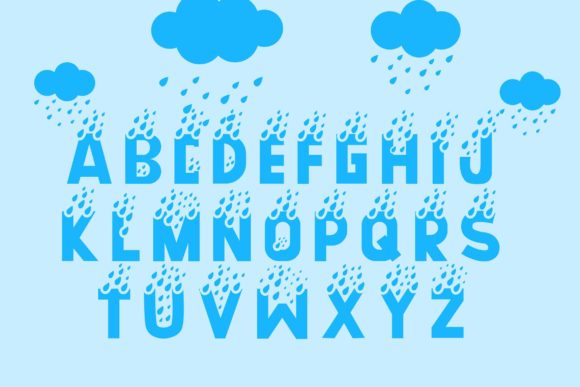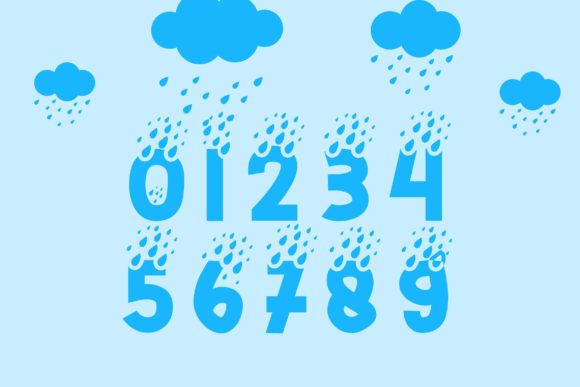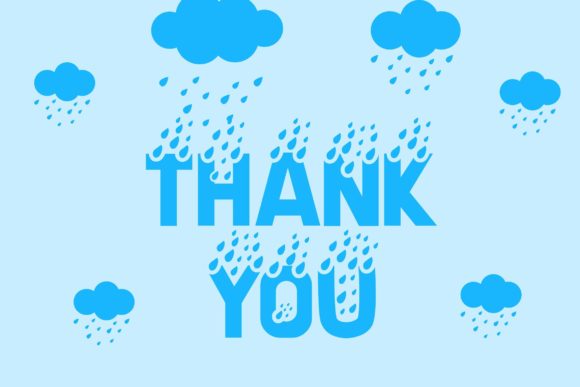
Introduction to Rain Font Font
Fonts play a crucial role in design, and the Rain Font font is a typeface that brings both character and versatility to any project. Whether you’re working on a branding project, a website, or a print design, the Rain Font font offers a unique style that can elevate your work.
Rain is a unique and attractive decorative to use for your new creative projects such as crafts, t-shirt designs, posters, digital designs, presentations, book covers, and or your favorite design ideas.
Add them to your most creative ideas, and watch how it makes it visible .
Key Features of Rain Font Font
Why Choose Rain Font Font?
The Rain Font font is more than just a typeface – it’s a design tool that helps you communicate your message with style and clarity. Its unique character set and versatile design make it suitable for a wide range of applications, from elegant invitations to bold headlines.
With its carefully crafted letterforms and balanced proportions, the Rain Font font ensures readability and visual appeal across all mediums.
What makes Rain Font font special?
The Rain Font font stands out with its unique design, exceptional readability, and versatility across various design applications.